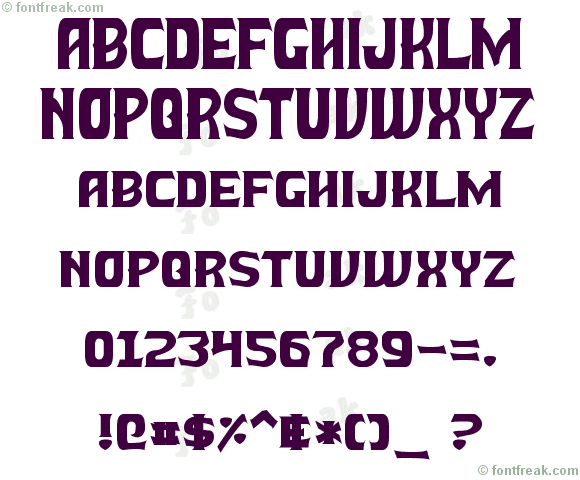
Beastformer
Beastformer, created by Neale Davidson in 2011, is a striking display font that captures attention with its bold and unique aesthetic. This freeware font features a distinct style that falls within the display category, making it perfect for projects that require a strong visual impact. The character design showcases a heavy stroke weight, complemented by sharp angles and an overall geometric form. This combination creates a sense of dynamism and energy, making the font ideal for grabbing viewers' attention.
The visual characteristics of the Beastformer font include a high contrast between thick and thin strokes, which enhances its readability while maintaining a decorative flair. The spacing between characters is well-balanced, ensuring that each letter stands out without feeling crowded. Its distinctive shapes and angles lend themselves to a variety of creative applications, making it a versatile choice for designers.
Beastformer is particularly well-suited for use in movie posters, where its bold presence can evoke excitement and intrigue. It also works wonderfully in branding materials for modern businesses, especially those in the entertainment and technology sectors. Additionally, the font can enhance restaurant menus, giving an edgy touch to the dining experience. Graphic designers and content creators will find this font a valuable addition to their toolkit, as it can elevate any project that requires a distinctive and modern touch.